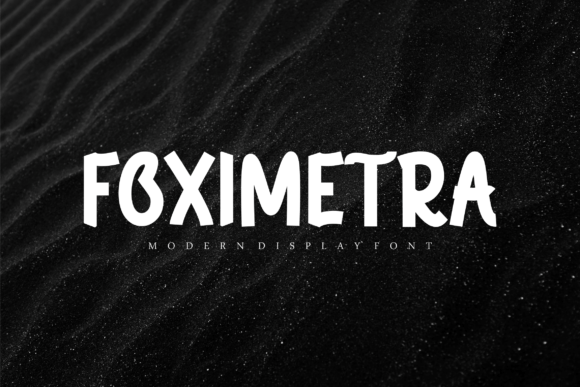
Introducing Foximetra Font: The Ultimate Modern Display Font
In the world of typography, a good font can make all the difference in creating a lasting impression. For designers and crafters, finding the perfect font for their projects can be a daunting task. However, if you’re looking for a modern display font that exudes boldness and authenticity, look no further than Foximetra Font. In this article, we’ll dive into the features and benefits of Foximetra Font, and explore its versatility in various contexts.
What is Foximetra Font?
Foximetra Font is a modern display font designed to make a statement. Its bold and authentic touch makes it perfect for a wide range of applications, from branding projects and logos to t-shirt printings and esports. The font’s sleek and contemporary design ensures that it stands out in any context, making it an excellent choice for designers and crafters looking to create a lasting impression.
Key Features of Foximetra Font
So, what sets Foximetra Font apart from other fonts? Here are some of its key features:
- Bold and Authentic Design: Foximetra Font boasts a bold and authentic design that commands attention. Its modern aesthetic ensures that it looks great in any context.
- Versatility: Foximetra Font is suitable for a wide range of projects, including branding, logos, t-shirt printings, esports, and more.
- High-Quality Design: The font is designed with precision and attention to detail, ensuring that it looks great in any size or format.
Use Cases for Foximetra Font
Foximetra Font is an incredibly versatile font that can be used in various contexts. Here are some examples of how you can use Foximetra Font:
- Branding and Logos: Create a lasting impression with Foximetra Font. Its bold and authentic design makes it perfect for logos, business cards, and other branding materials.
- T-Shirt Printings: Foximetra Font is great for t-shirt printings, posters, and other merchandise. Its bold design ensures that it stands out on any material.
- Esports: Foximetra Font is an excellent choice for esports teams, gamers, and enthusiasts. Its modern design and bold aesthetic make it perfect for jerseys, logos, and other gaming-related materials.
- Advertising and Marketing: Use Foximetra Font to create eye-catching ads, posters, and marketing materials that grab attention.
Benefits of Using Foximetra Font
So, why should you choose Foximetra Font for your projects? Here are some benefits of using this amazing font:
- Unique and Memorable: Foximetra Font is designed to make a statement. Its bold and authentic design ensures that your project stands out from the crowd.
- Easy to Read: Despite its bold design, Foximetra Font is easy to read, making it perfect for body text and headlines.
- Highly Versatile: Foximetra Font can be used in various contexts, from digital projects to print materials.
In conclusion, Foximetra Font is an excellent choice for designers and crafters looking for a modern display font with a bold and authentic touch. Its versatility, high-quality design, and ease of use make it perfect for a wide range of projects. Whether you’re working on a branding project, t-shirt printing, or esports-related material, Foximetra Font is sure to make a lasting impression.